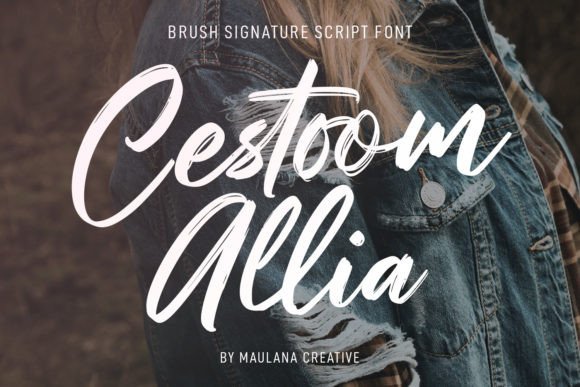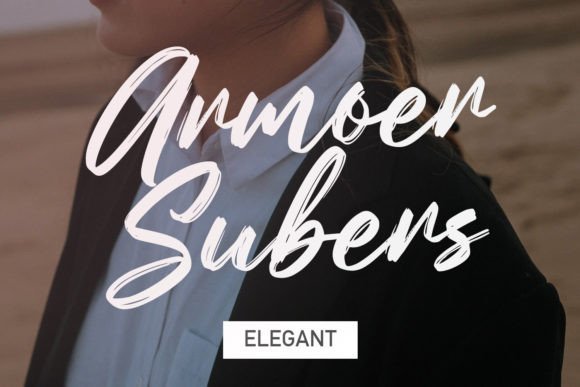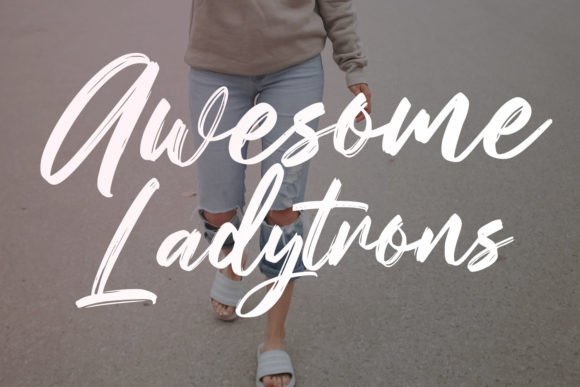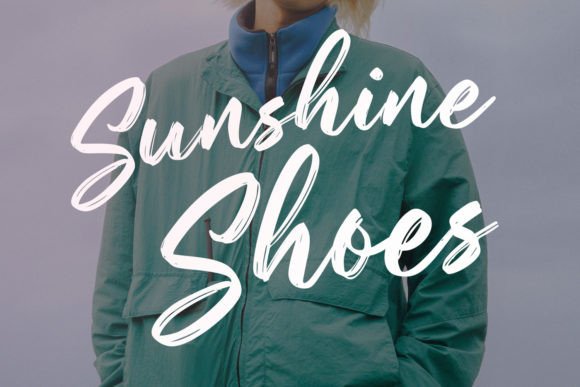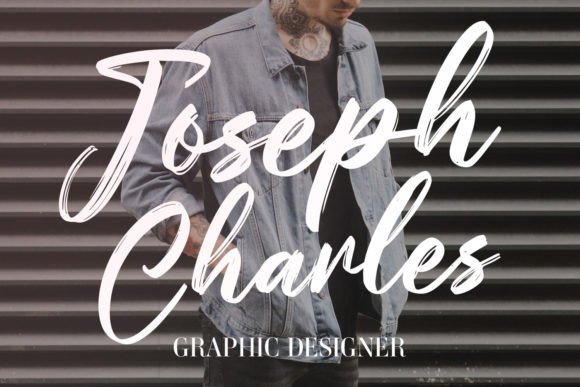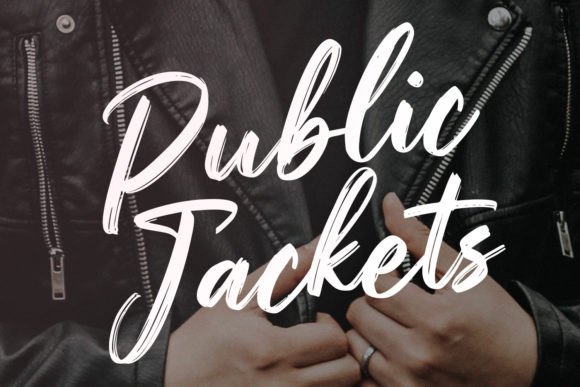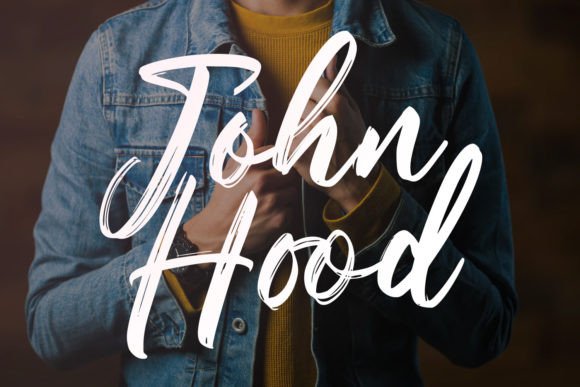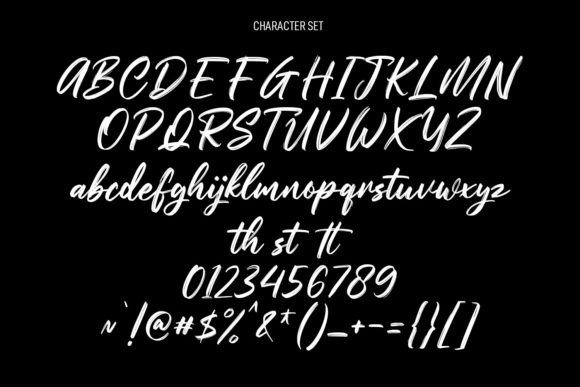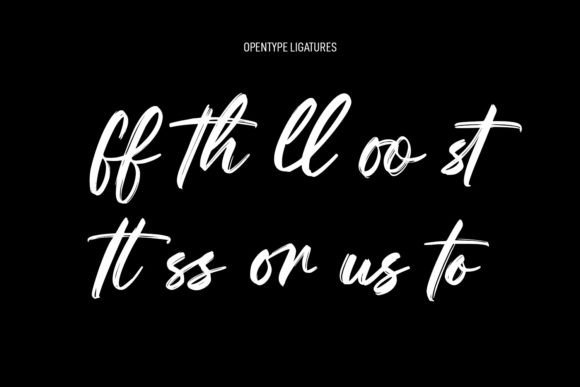
Cestoom Allia Font
About Cestoom Allia Font
“Cestoom Allia” is a modern and casual brush script font that offers versatility and style for a wide range of design applications. This font is particularly well-suited for creating gorgeous wedding invitations, beautiful stationery, eye-catching social media posts, and various other design projects.
The font’s casual brush script style is characterized by its flowing and expressive characters. It adds a touch of informality and creativity to your designs, making them engaging and memorable. “Cestoom Allia” can capture the essence of casual elegance, making it perfect for projects that require a balance of style and approachability.
In the world of design, fonts are essential for conveying mood, style, and visual identity. “Cestoom Allia” excels in these aspects by offering a brush script font that is both modern and visually captivating. Its aesthetics infuse your designs with a sense of versatility and casual elegance, making them stand out and resonate with your audience.
In summary, “Cestoom Allia” is more than just a font; it’s a versatile and stylish design tool that can enhance your creative projects with its modern and casual brush script style. Whether you’re designing wedding invitations, social media graphics, or any other project that calls for a blend of style and approachability, “Cestoom Allia” is the font that can help you craft designs that are visually stunning and effortlessly elegant.